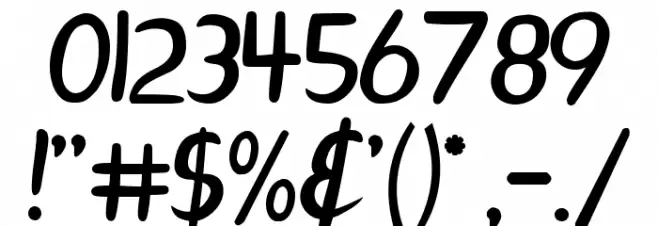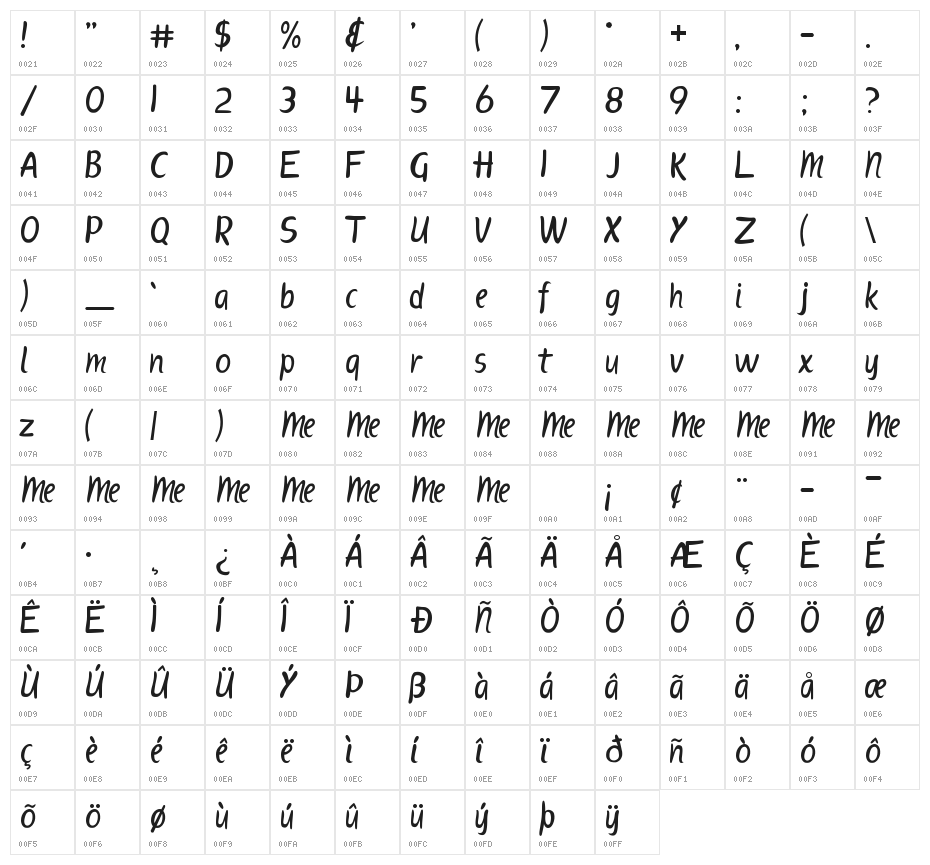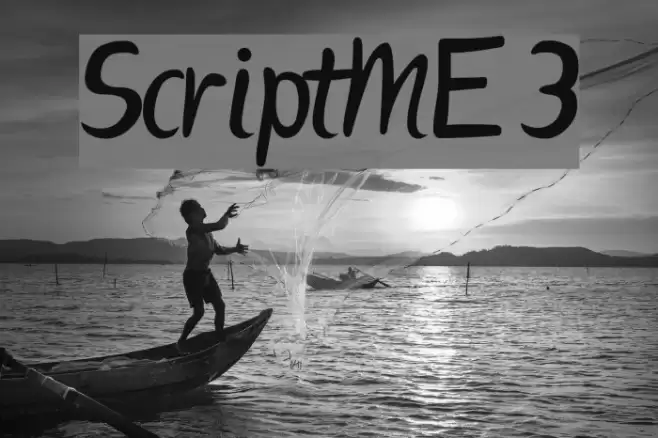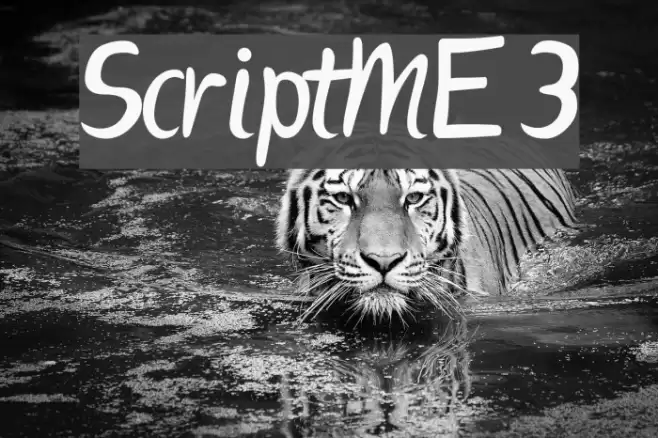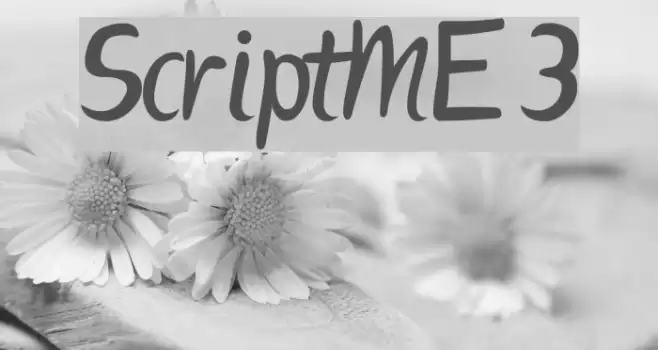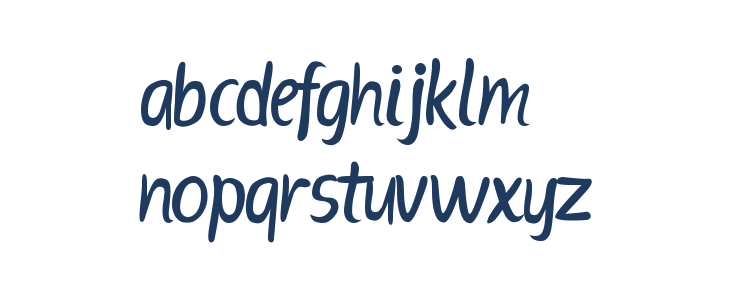
ScriptME 3 Font
ScriptME 3 Description
This font exudes a playful and casual vibe, characterized by its handwritten style that mimics natural penmanship. The letters are slightly slanted, giving a dynamic and informal appearance. Each character is crafted with smooth, flowing strokes that vary in thickness, adding a touch of spontaneity and warmth. The uppercase letters are bold and prominent, while the lowercase letters maintain a consistent flow, enhancing readability. The numerals and special characters are designed to match the overall style, ensuring a cohesive look. This font is perfect for projects that require a personal touch, such as invitations, greeting cards, or creative branding.